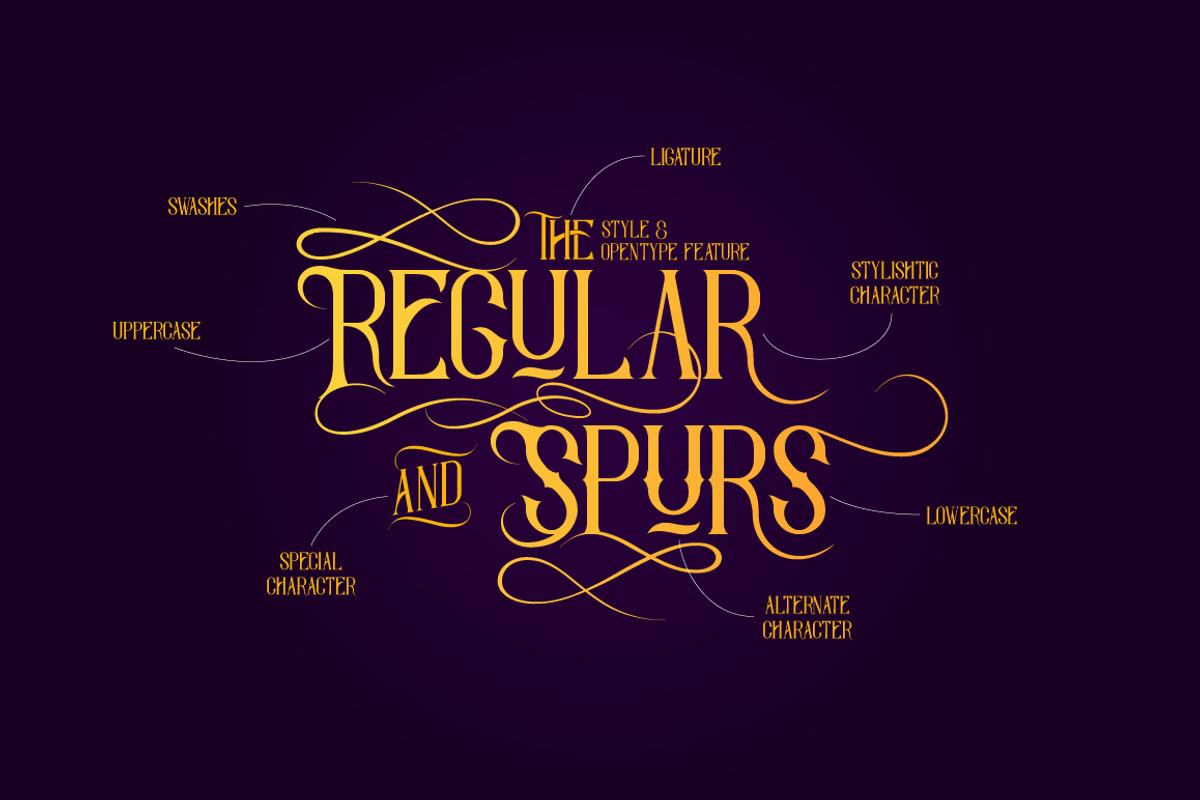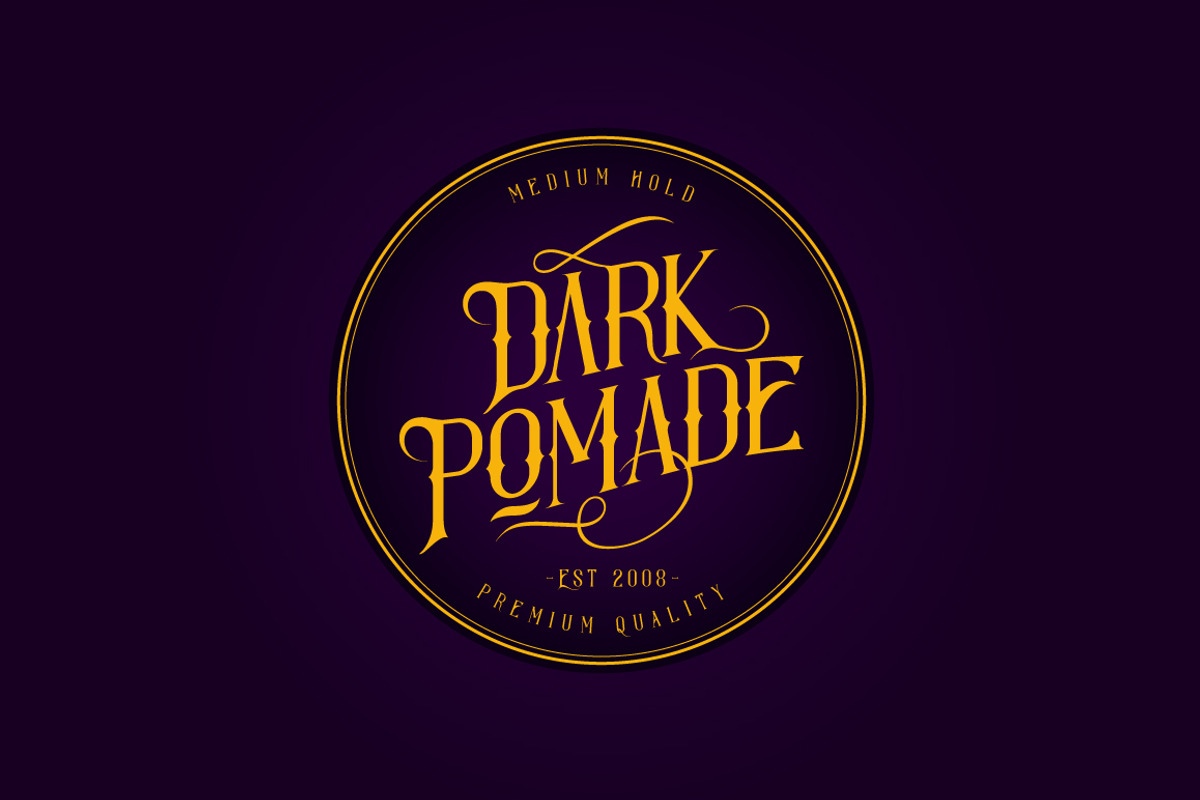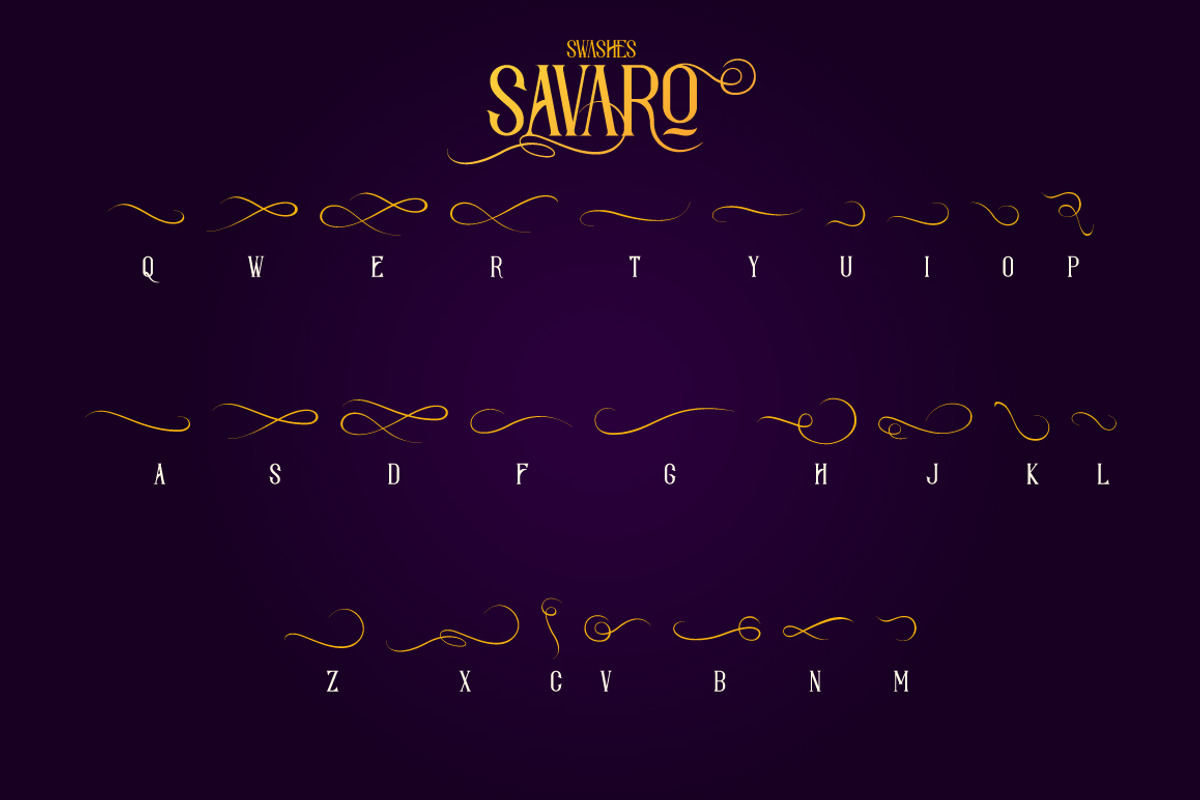
Savaro Typeface
Savaro Typeface by Dikas Studio is a font selected for branding, posters, packaging, typography.
- Feature Uppercase Lowercase Punctuation and Number Multilingual Language Alternate Character Stylistic Set 01 Ligature Swashes and Special C
- You can mix any alternate character, stylistic alternate and swashes, its very helpfull to make this font look stylish.
Why Savaro Typeface is worth a look
Savaro Typeface by Dikas Studio fits naturally into Branding, posters, packaging, typography.